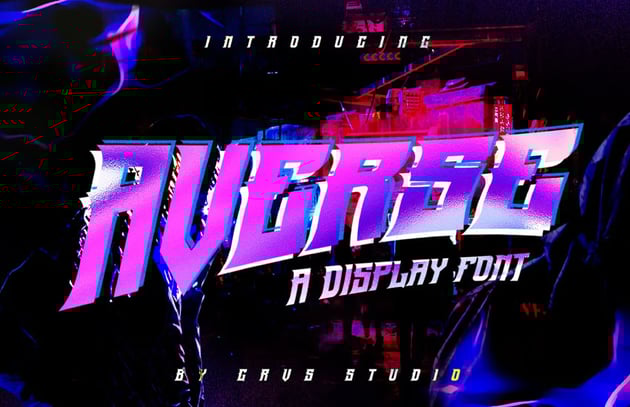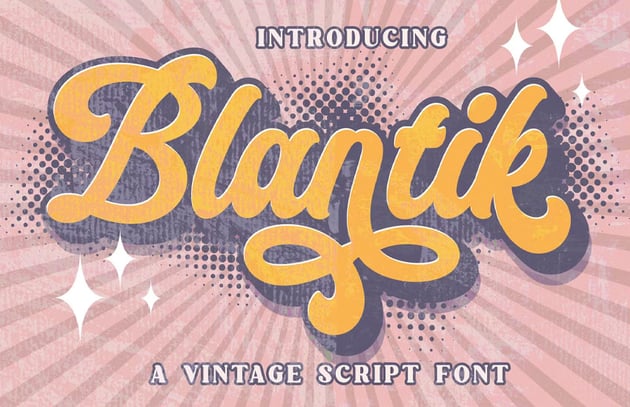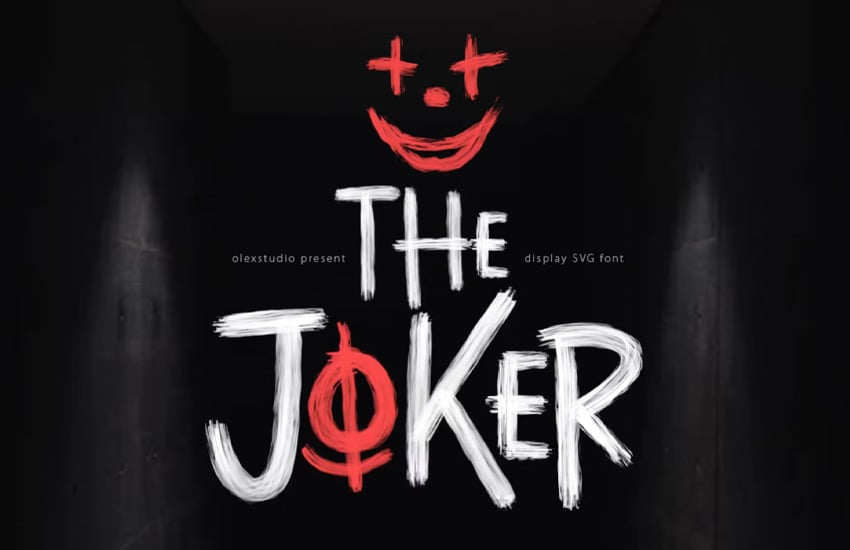
24 Best Superhero Fonts (Marvel & DC Fonts)
Love superhero fonts? They come in so many shapes in sizes, like the Black Panther font, the X-Men font, or the Wonder Woman font. Or how about more villain-inspired fonts, like the Joker "hahaha" font or the Harley Quinn font? Check out this list of expressive superhero fonts!
What Are Superhero Fonts?
You might be wondering things like: what font is the Black Panther logo? Or maybe what font is "Black Panther" written in, in the movie titles? Something to keep in mind is: most movie titles are either custom lettering or have been designed in a way that they are not strictly a standard commercial font. There are exceptions, of course, and some font designers have made homages to well-known fonts—like a Deadpool font or an X-Men logo font.
However, keep in mind that copyright concerns can arise there. So if you want to use something like a Wolverine comic font in a commercial project, it would be best to find something with a similar aesthetic rather than directly mimicking (or even copying) that font. The "why so serious" Joker font, for example, is a handwriting font with an erratic baseline and horror-inspired elements—and there are plenty of them out there to choose from!
24 Superhero-Inspired Fonts to Download Now
1. Blowar Superhero Font (OTF, TTF, WOFF)
Notice how this font style looks strong and heroic. These are keywords we would want to associate with a superhero. It's easy to imagine this used in a title of a superhero movie. It has the energy of something we'd expect from a legendary hero.
2. Bat Knight Inspired Batman Lettering (OTF, TTF, WOFF)
If you're looking for something like the Batman font style, a font like this could be a perfect choice. Notice how we see that similar bold, strong energy. With the right color choices and added effects, we can take something stately and make it look weathered or worn.
3. Ultimate Super Hero Font (OTF, TTF)
This would be another great choice for a superhero-themed project. Notice how bold and strong the copy is. We also get a decorative edge at the top, similar to what we might see in a Deadpool font style or maybe even an X-Men font style.
4. The Joker Font (Batman Inspired Fonts) (OTF, TTF, SVG)
Batman fonts tend to target two aesthetics: something bold and strong or something erratic and jagged. It makes sense given the characters, right? When you think of the Joker "hahaha" font, for example, it's easy to think of sporadic lines that have a lot of movement or messy paint as we see here.
5. Averse Super Hero Font (OTF)
The pointed nature here could work if you're looking for a Wolverine font style. With different text effects, you could mimic the classic Wolverine comic font style. It's important to note the design choices—this looks very energetic because of the colors and the added effects.
6. Blantik Retro-Inspired Harley Quinn Shirt Font (OTF, TTF, WOFF)
If you love that Harley Quinn shirt font look, a curled vintage font like this one is a great choice. It's got a very fun, bouncy aesthetic. Text has the ability to communicate beyond how it literally reads, and that's what makes a lot of super hero fonts so successful.
7. Carter Retro Inspired Superman Logo Font (OTF, TTF)
A lot of vintage comic styles, like the classic Wonder Woman font style or the classic Superman logo font, make use of a blocky drop shadow, as we see here. Notice how the text with the added layer or shadow stands out as if it's larger or bolder than the rest.
8. Bombinate Inspired Batman Lettering (OTF)
This font could also work if you're looking for a Batman font aesthetic. The chrome effect pushes the look further, but imagine how this might look in another color. As the designer, you can push the aesthetic in any way that best works for your superhero project.
9. Outright Horror: The Joker Font (Batman Inspired) (OTF, TTF, WOFF)
How do you think this font visually communicates? It's far more chaotic than something solid and knightly. Instead, it's edgy, unusual, and inconsistent—all things we might associate with a villain or an anti-hero. See how the font can communicate a lot about the character, comic, or the film's subject?
10. Insurrection Inspired Black Panther Font (OTF)
This font might evoke associations with a Black Panther font style due to some of the pointed edges. Remember, again, your design choices could push this in a number of directions. Imagine it in saturated colors, for example, for added energy.
11. Sevastian Vintage Super Hero Font (TTF)
This font has a lot of potential as a vintage Superman font style. Notice, again, how the layered look plays into that retro aesthetic, while also communicating the idea of elevation or even "rising above". This retro style could work in a variety of situations.